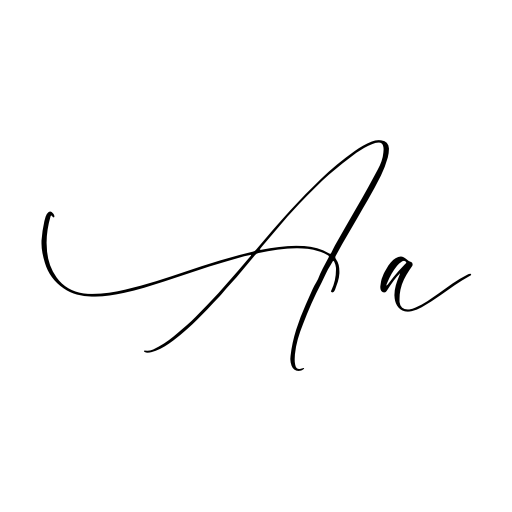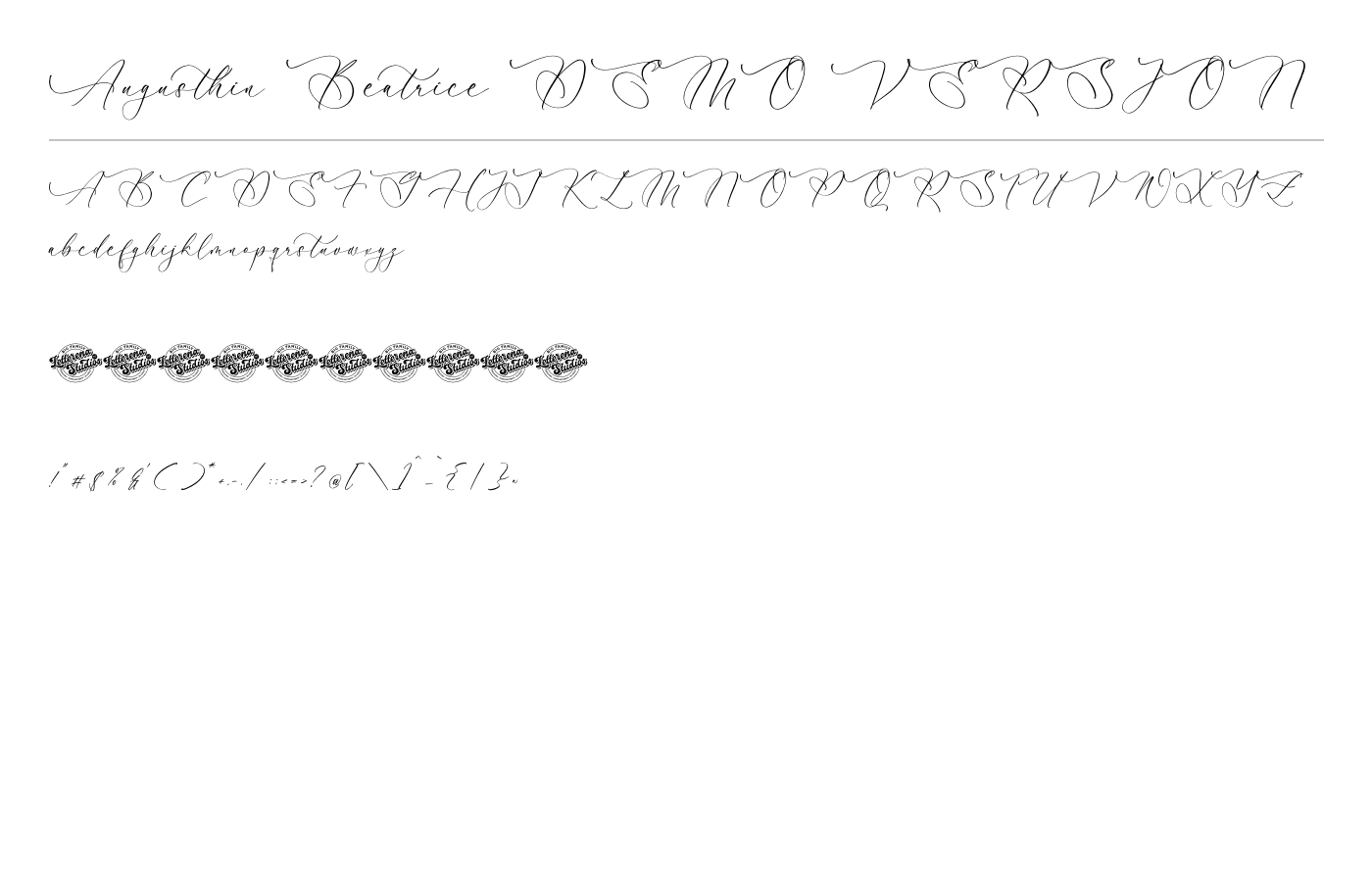
Augusthin Beatrice is an elegant, delicate script font characterized by its thin, flowing strokes and intricate swashes, giving it a graceful, hand-written feel. Its high-contrast, fine lines, and ornate uppercase letters make it perfect for luxury branding, wedding invitations, and sophisticated editorial designs where a refined, romantic touch is desired.
Augusthin Beatrice DEMO VERSION Font
About Augusthin Beatrice DEMO VERSION Font
| Font family | Augusthin Beatrice DEMO VERSION Font |